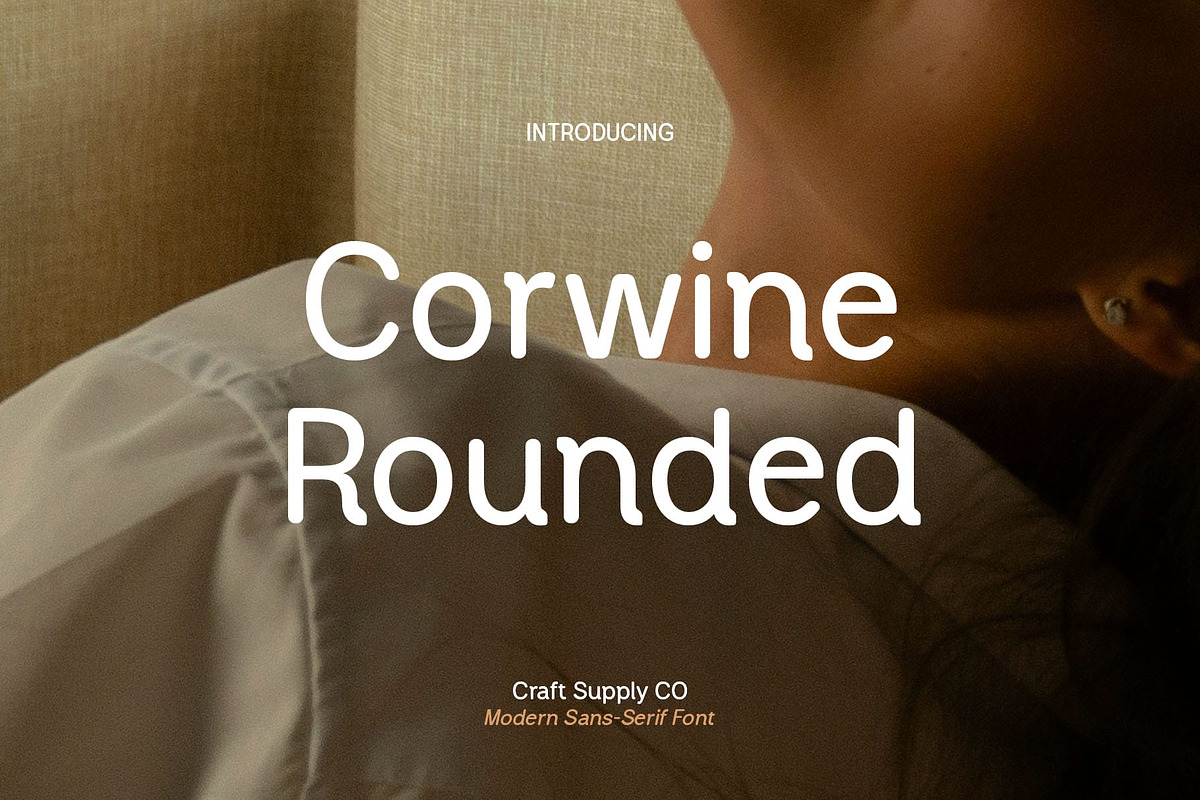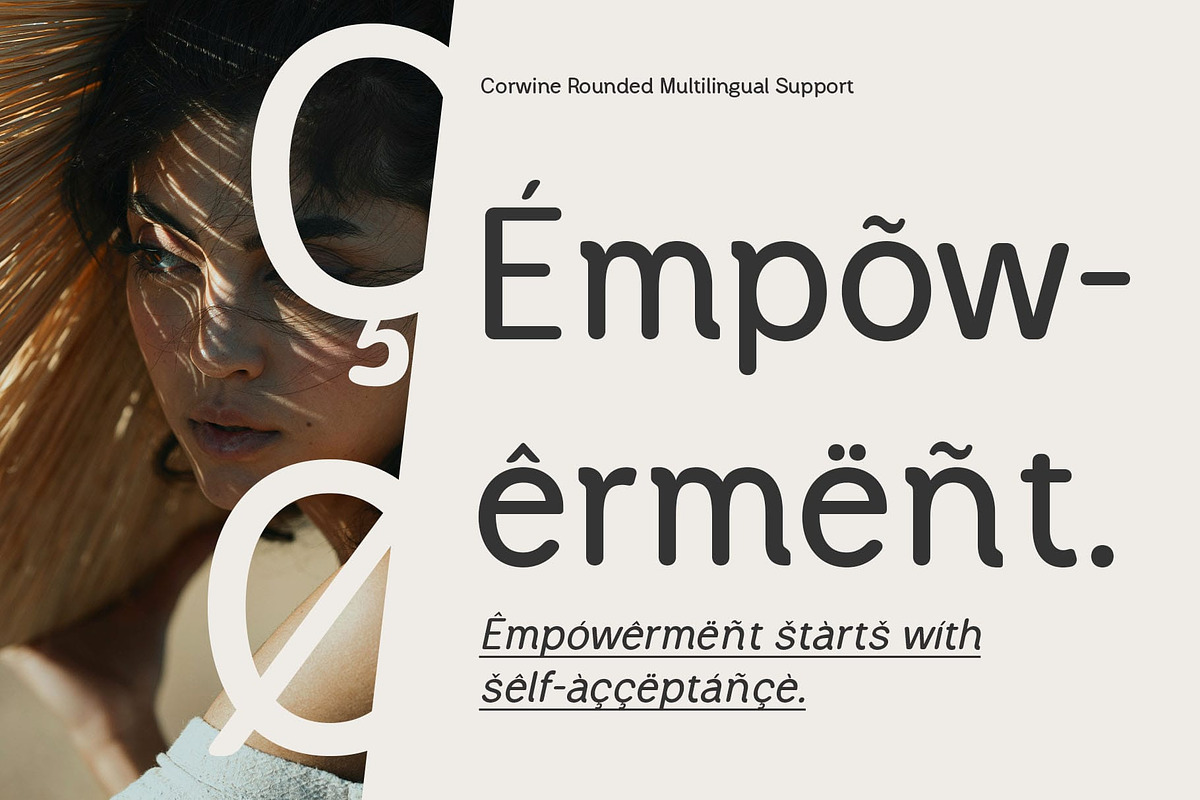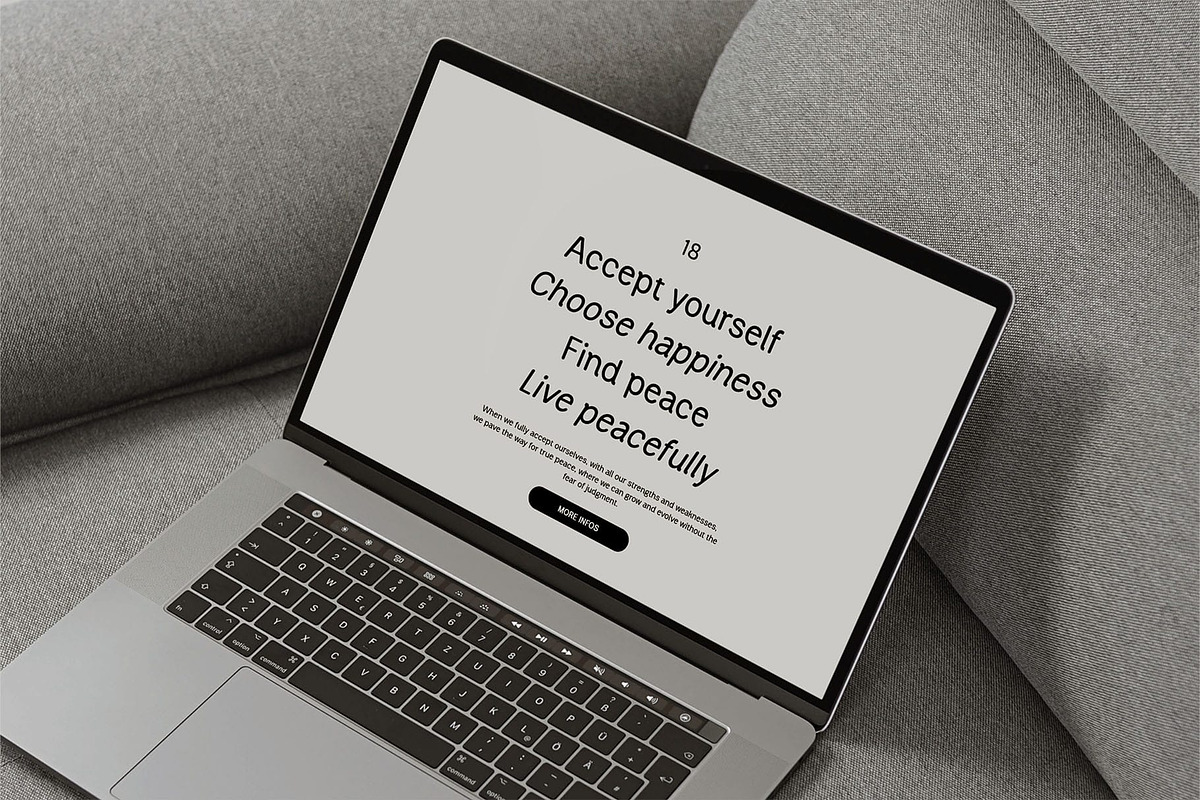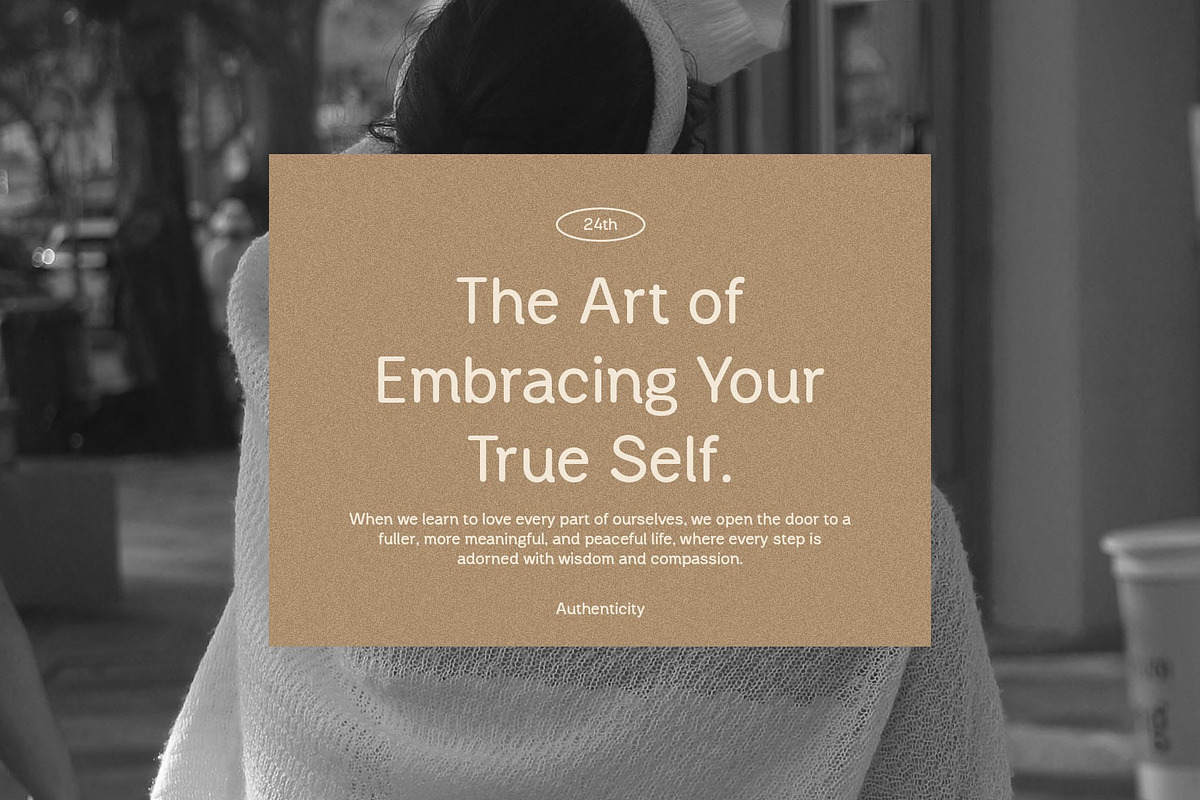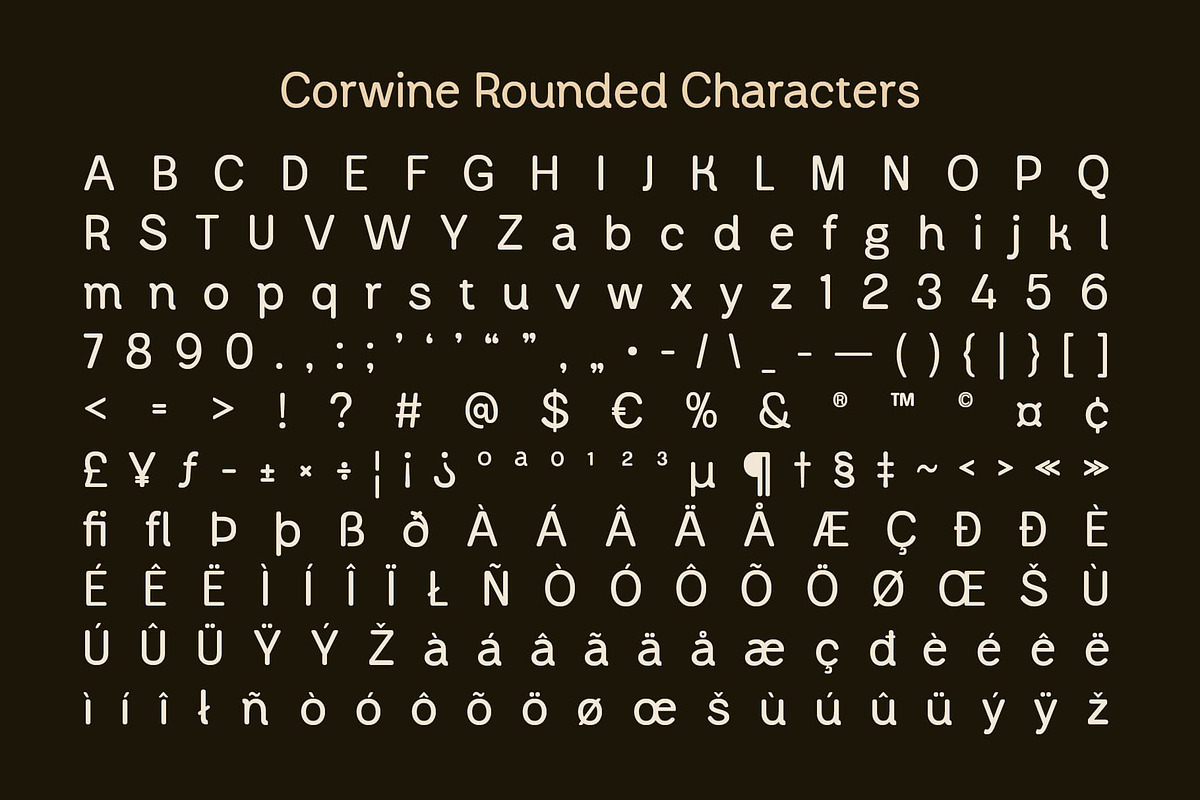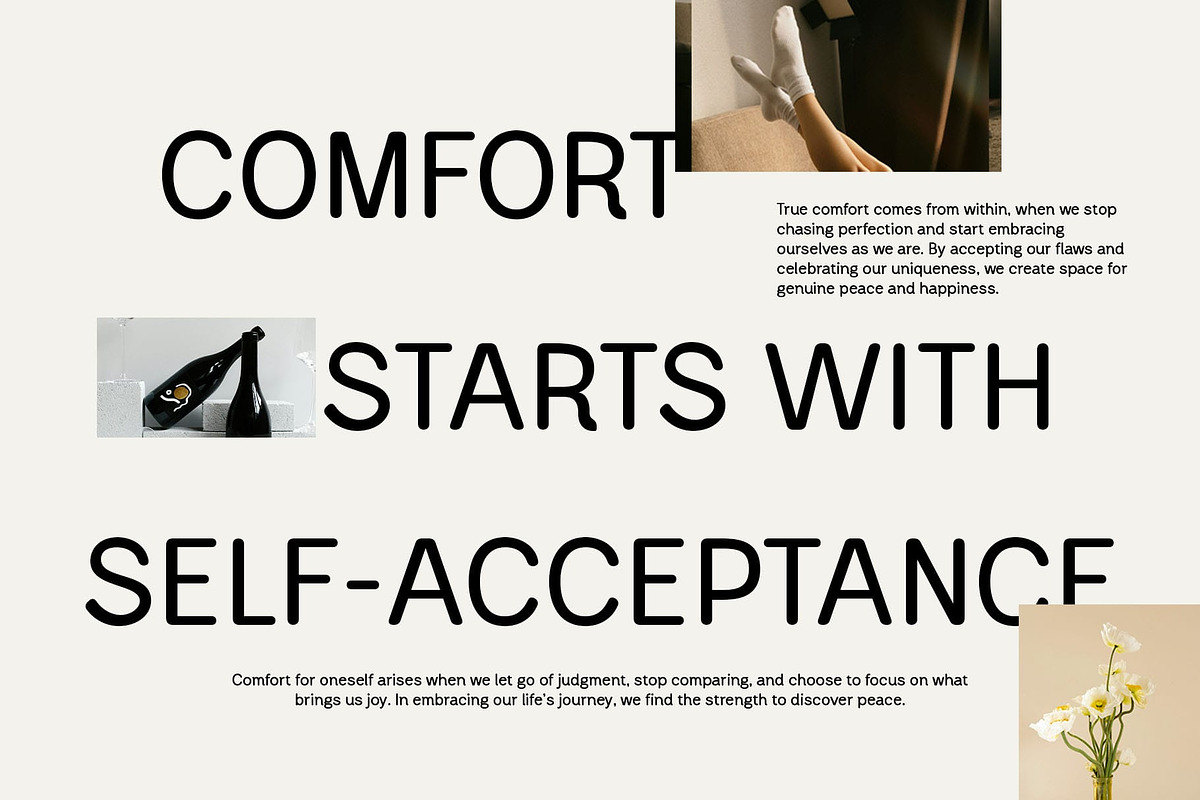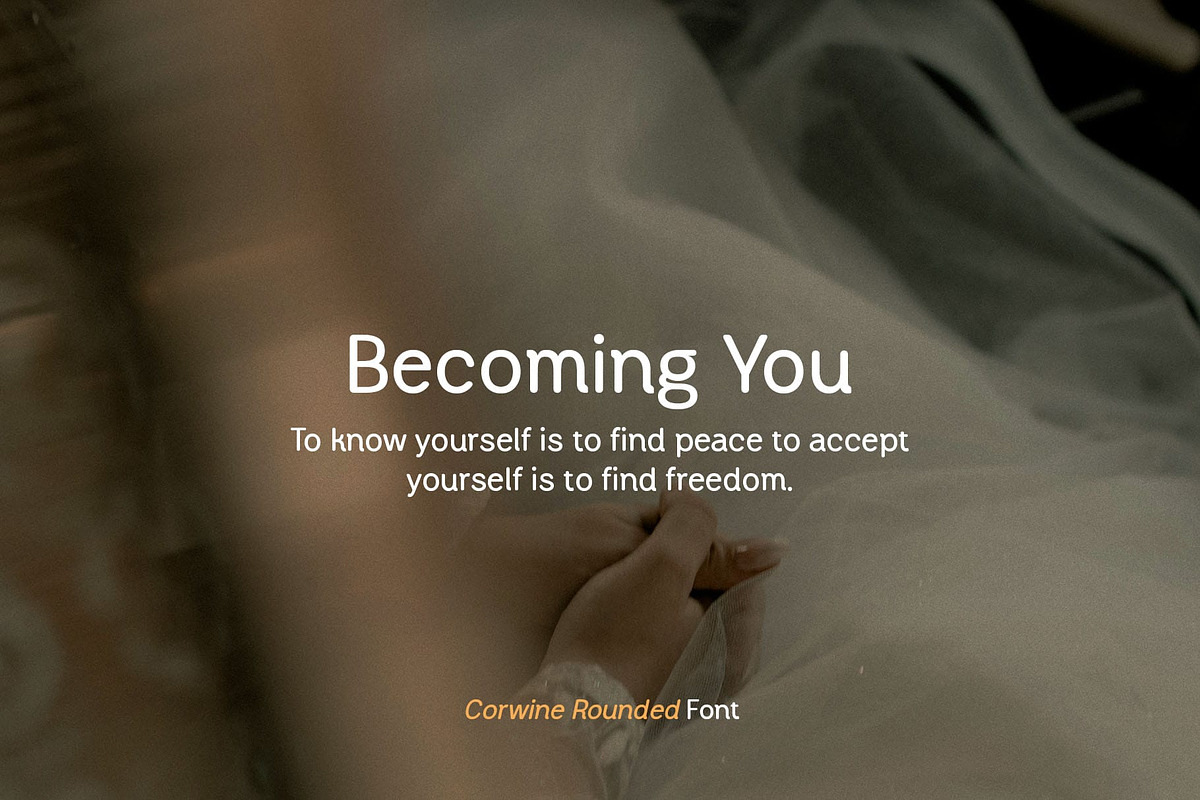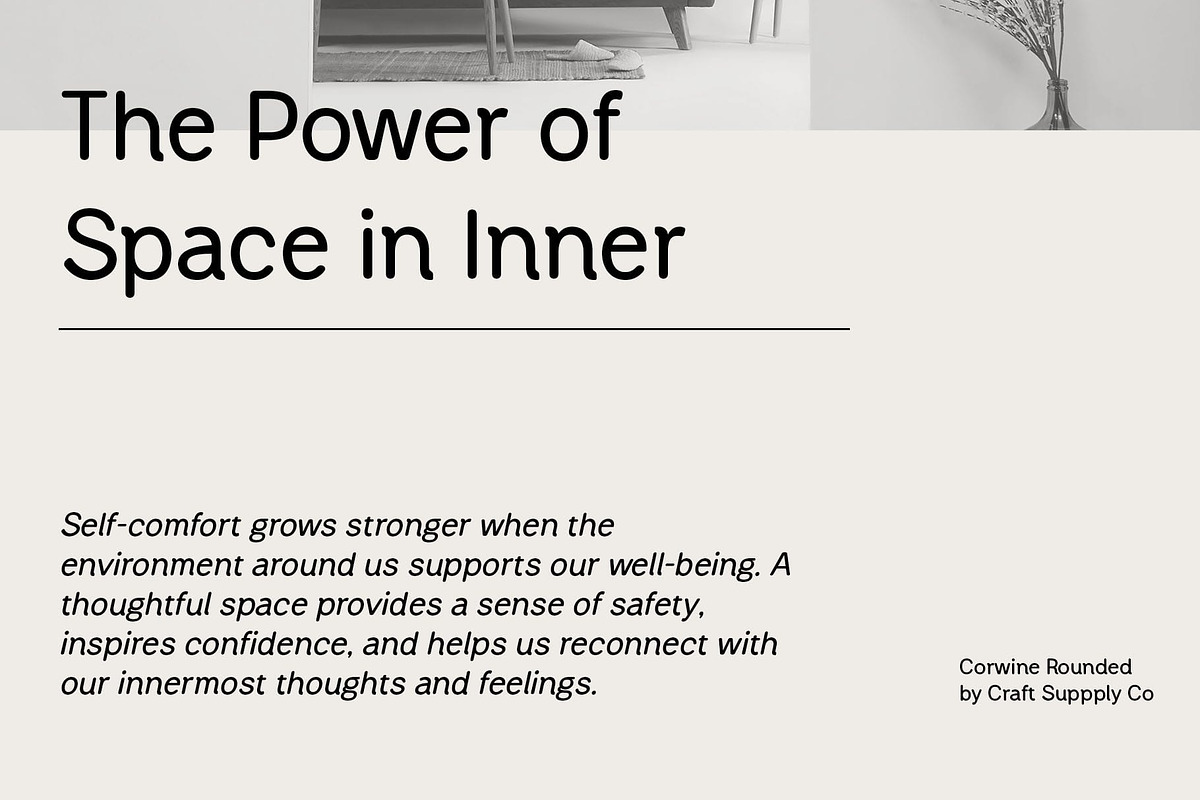
Corwine Rounded
Corwine Rounded Font – Modern Sans Serif with Geometric Precision
Clean, Structured Lines with Smooth Curves Corwine Rounded is a modern sans serif font that blends the precision of geometric design with the warmth of rounded shapes. Its clean, structured lines provide clarity and professionalism, while the smooth curves of the rounded edges introduce a friendly and approachable feel. This perfect balance makes Corwine Rounded ideal for contemporary designs that require both elegance and accessibility.
Geometric Precision for Clarity and Readability With its geometric forms, Corwine Rounded ensures exceptional clarity and readability, making it perfect for a wide range of design applications. Whether used in logos, websites, or user interfaces, the font’s clean lines and well-defined shapes ensure that it performs with precision, ensuring clear communication across both digital and print mediums.
Versatile for Corporate and Casual Designs The versatility of Corwine Rounded makes it suitable for a broad spectrum of design projects. Its sleek, modern aesthetic and approachable nature make it an excellent choice for corporate branding, marketing materials, digital interfaces, and even casual applications. From professional business identities to friendly, accessible user experiences, Corwine Rounded strikes the perfect tone.